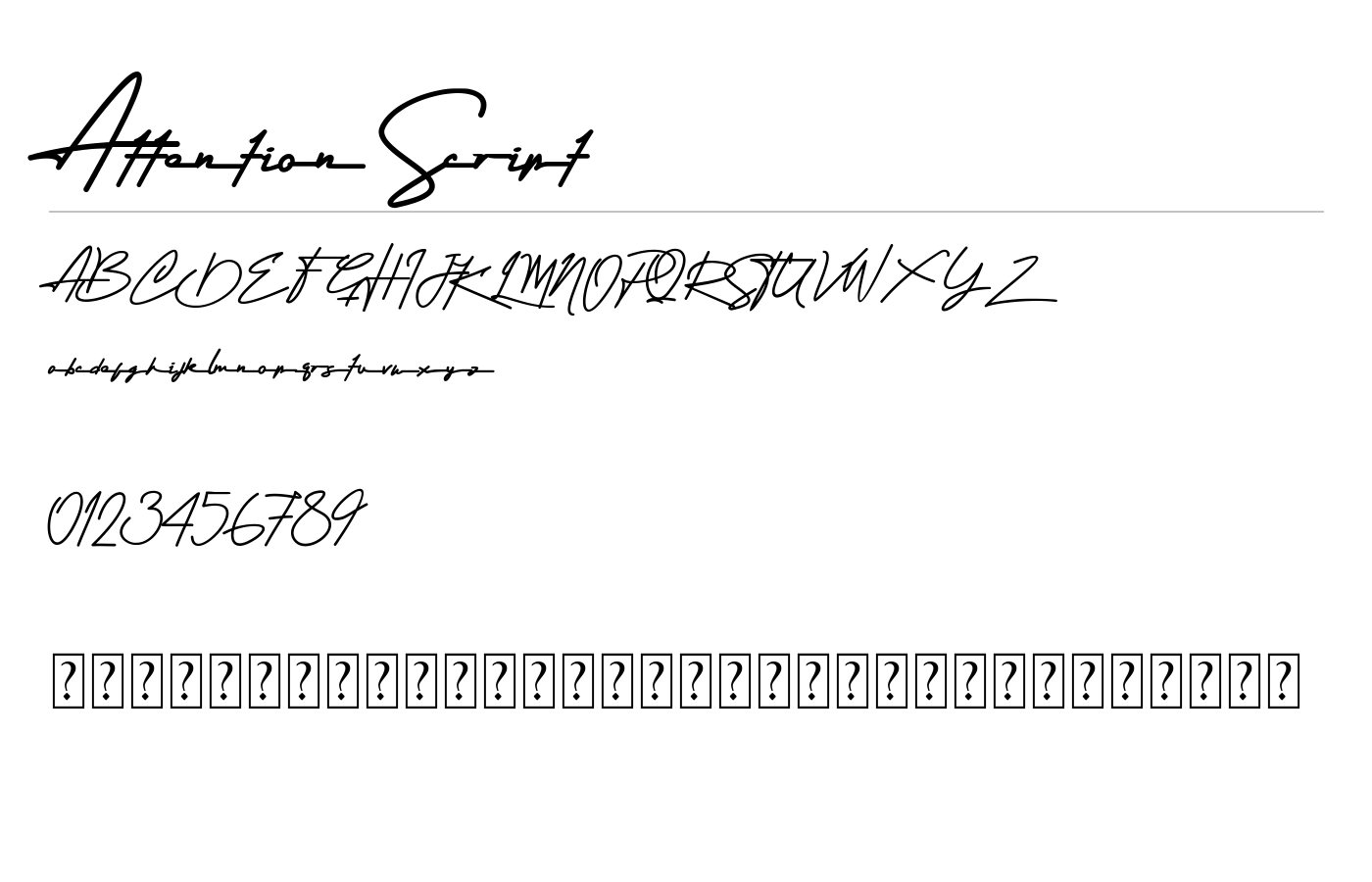
Attention Script Font is a delicate, handwritten script characterized by its light weight and narrow width, creating an intimate and flowing feel. Its slender, sharp strokes and irregular letterforms convey a personal, artistic touch, making it ideal for creative branding, invitations, or expressive headlines where a casual yet elegant appearance is desired. This font works best in designs that seek a handcrafted, authentic vibe with a modern flair.
Attention Script Font
About Attention Script Font
| Font family | Attention Script Font |
| Designer | Andi Imam Rosady |